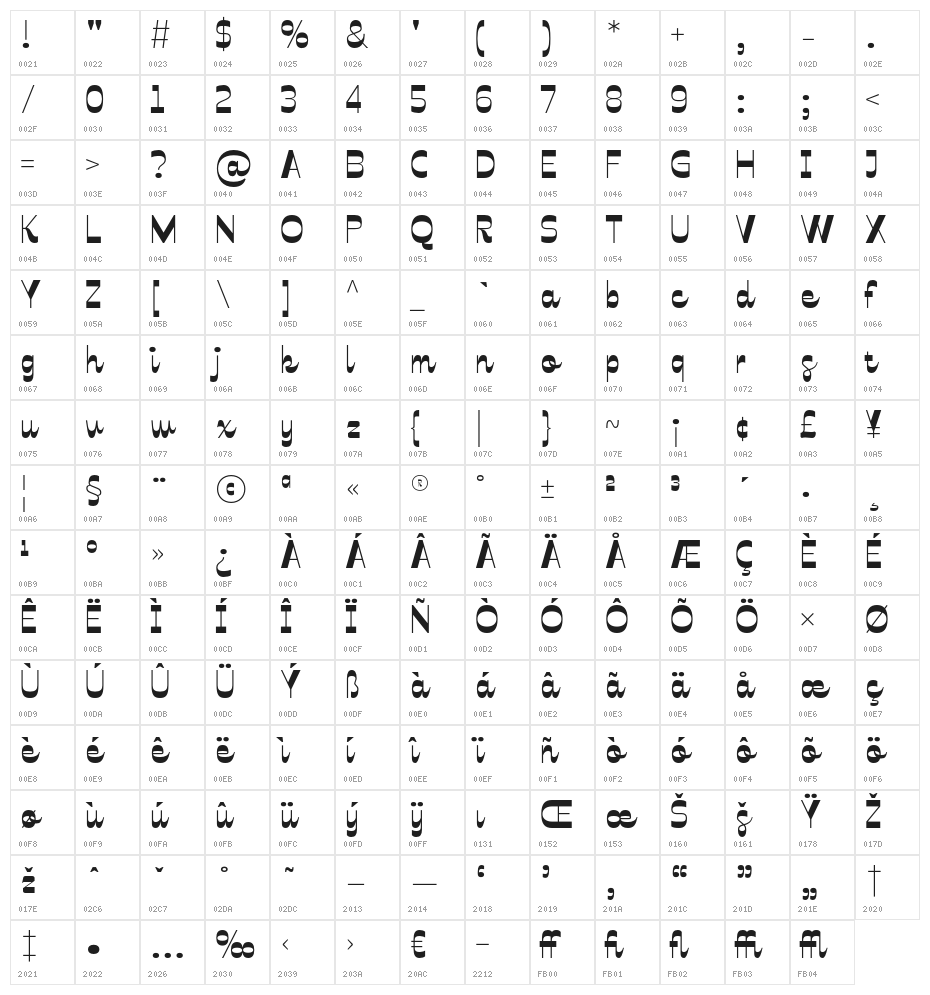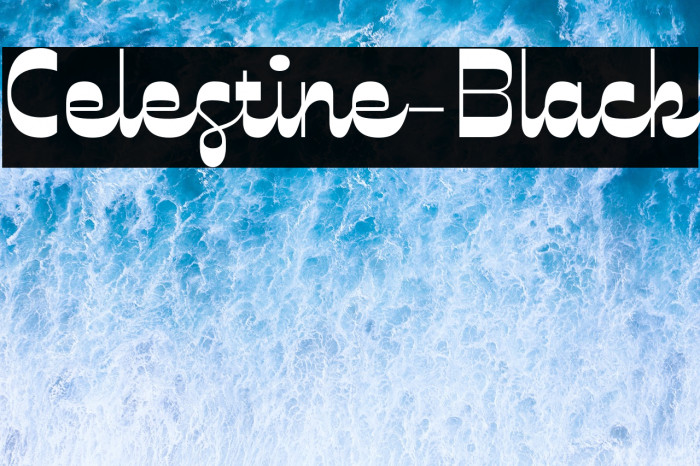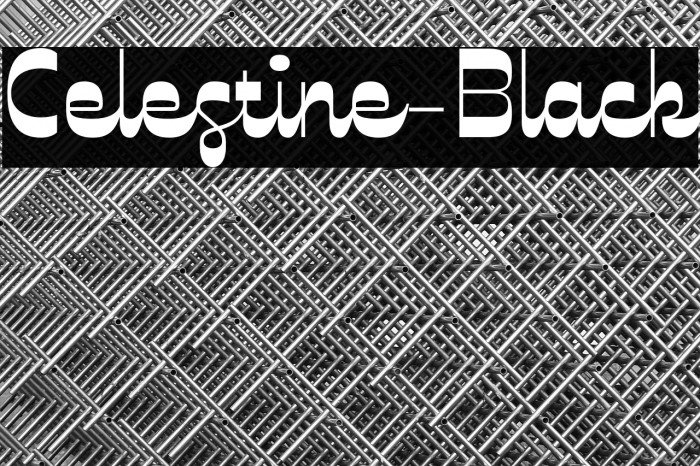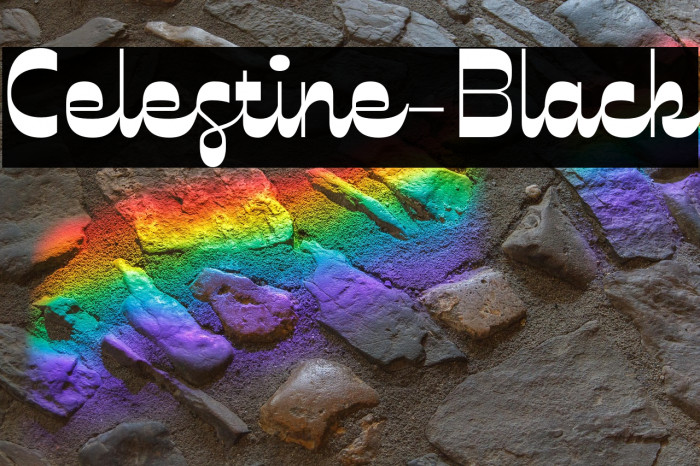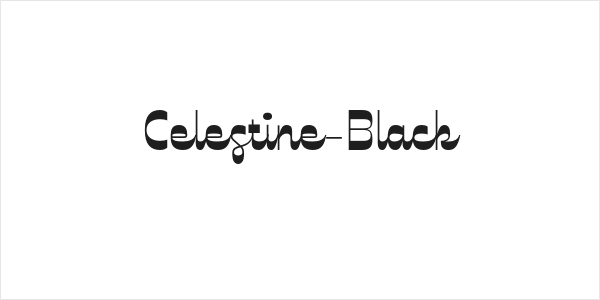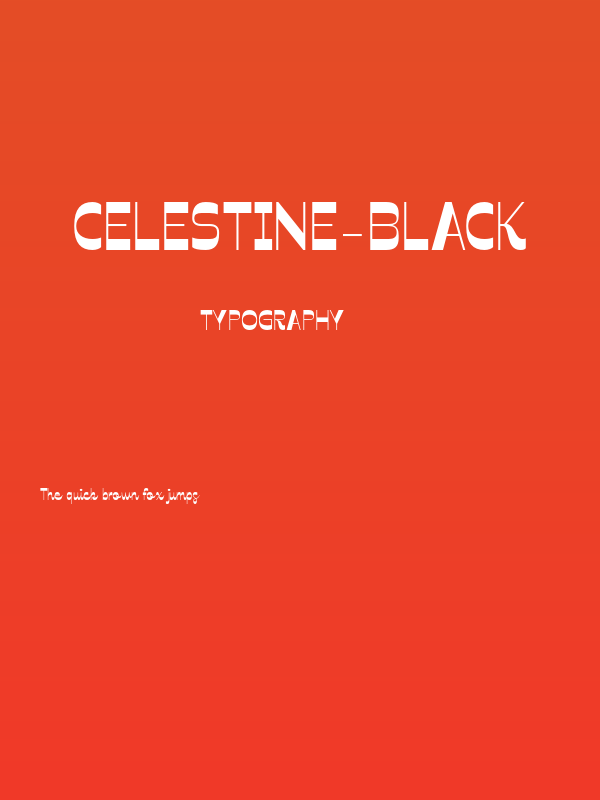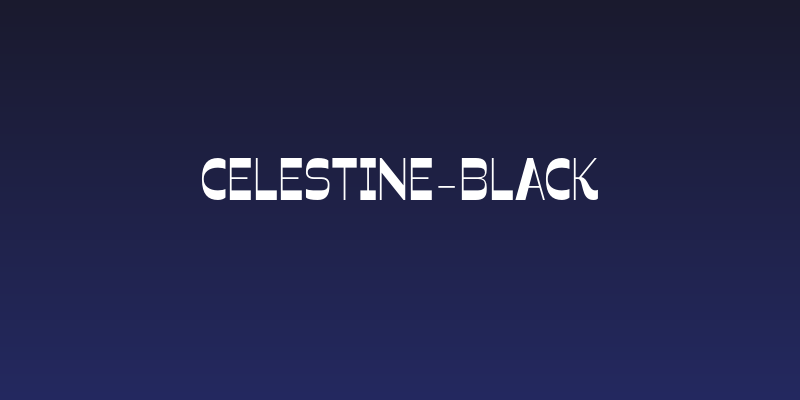
Celestine-Black Font
Celestine-Black Description
This font features a bold and modern design with a unique blend of geometric and script elements. The uppercase letters are characterized by their strong, angular shapes, while the lowercase letters introduce a more fluid and cursive style, creating an intriguing contrast. The numerals are bold and consistent with the uppercase style, ensuring readability and impact. Special characters are designed with a similar boldness, maintaining the overall aesthetic. The font's distinct style makes it suitable for creative and eye-catching designs.